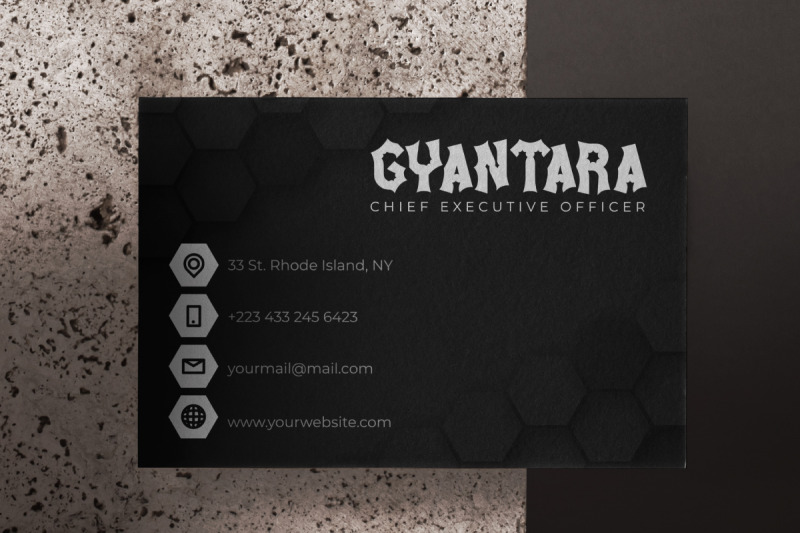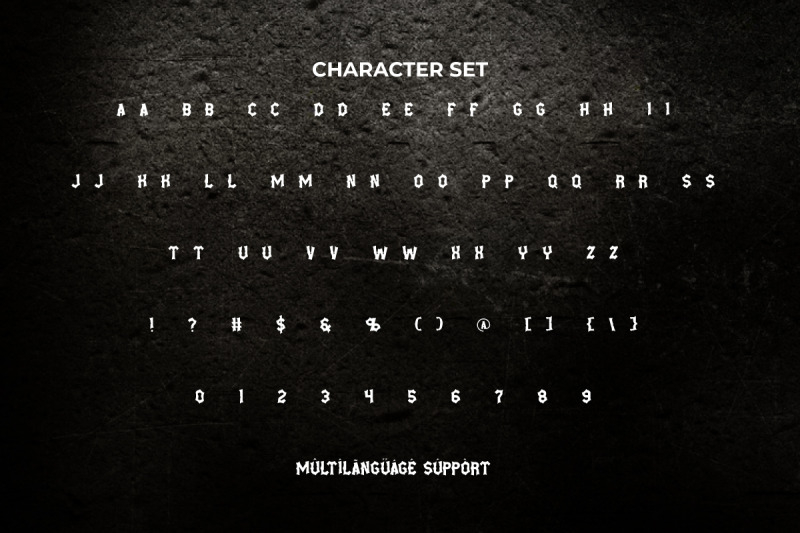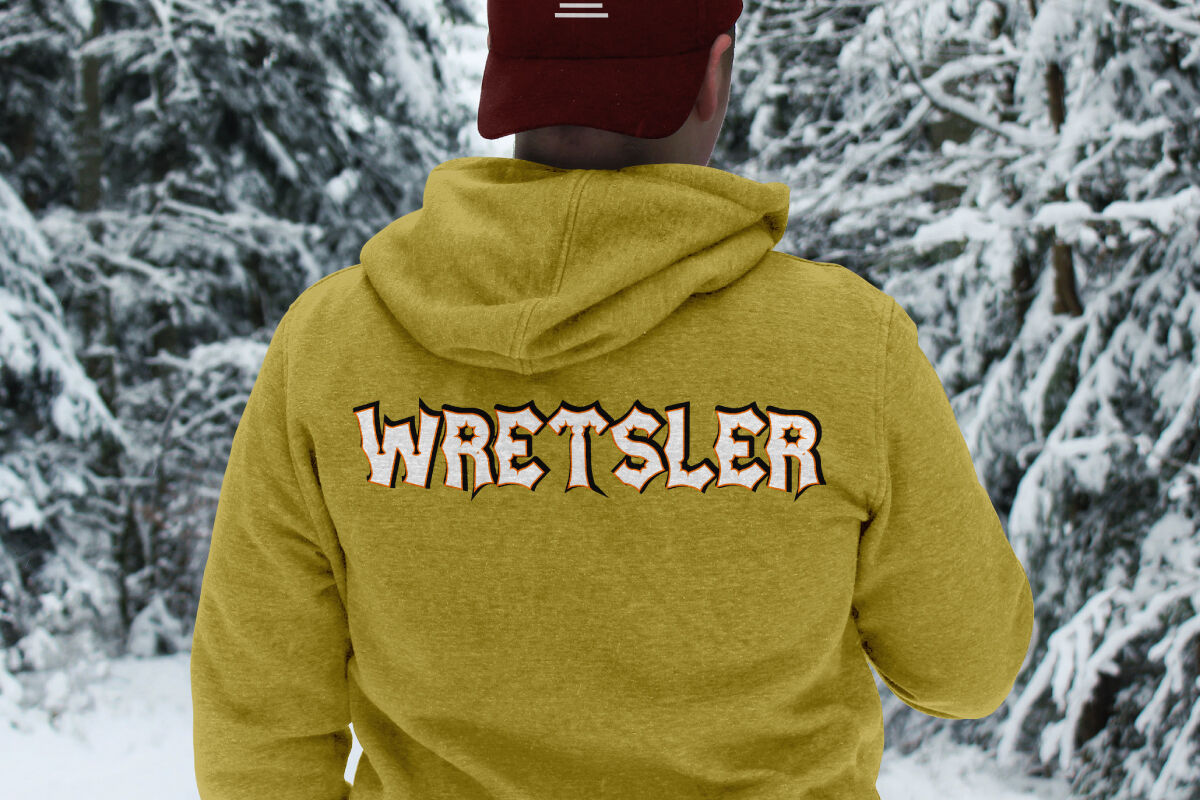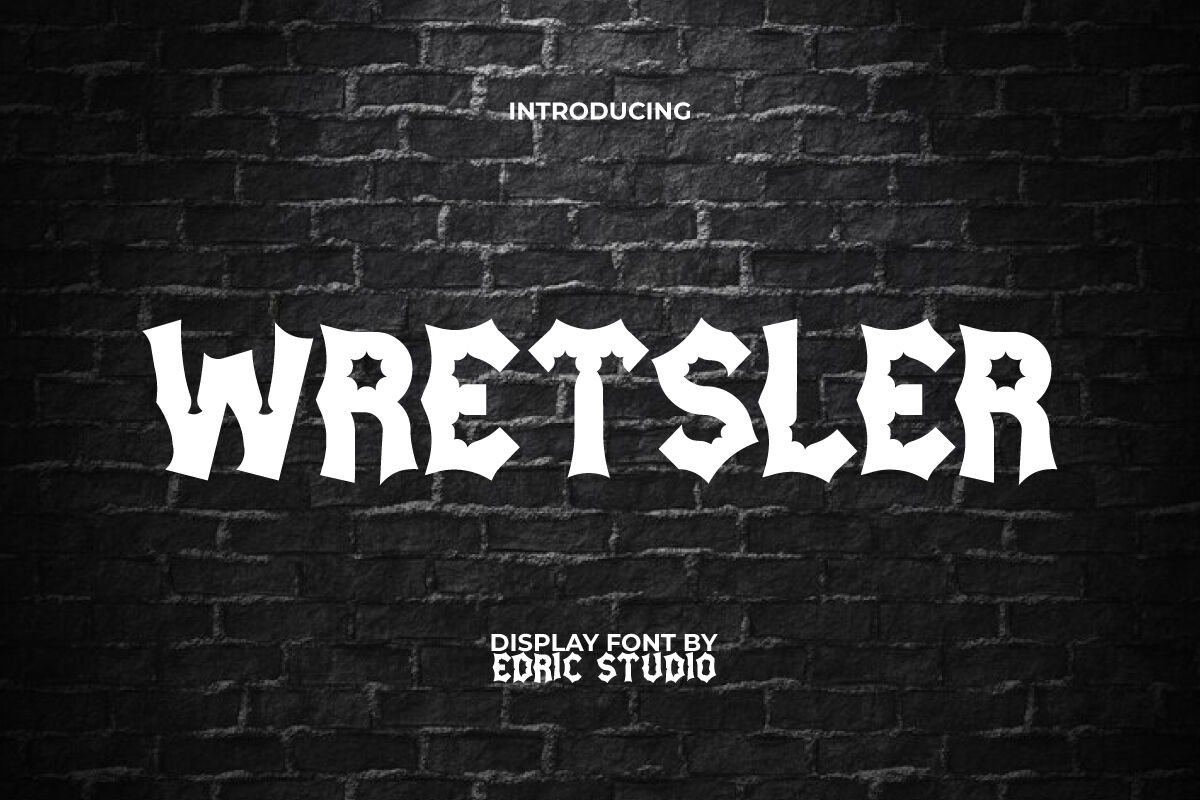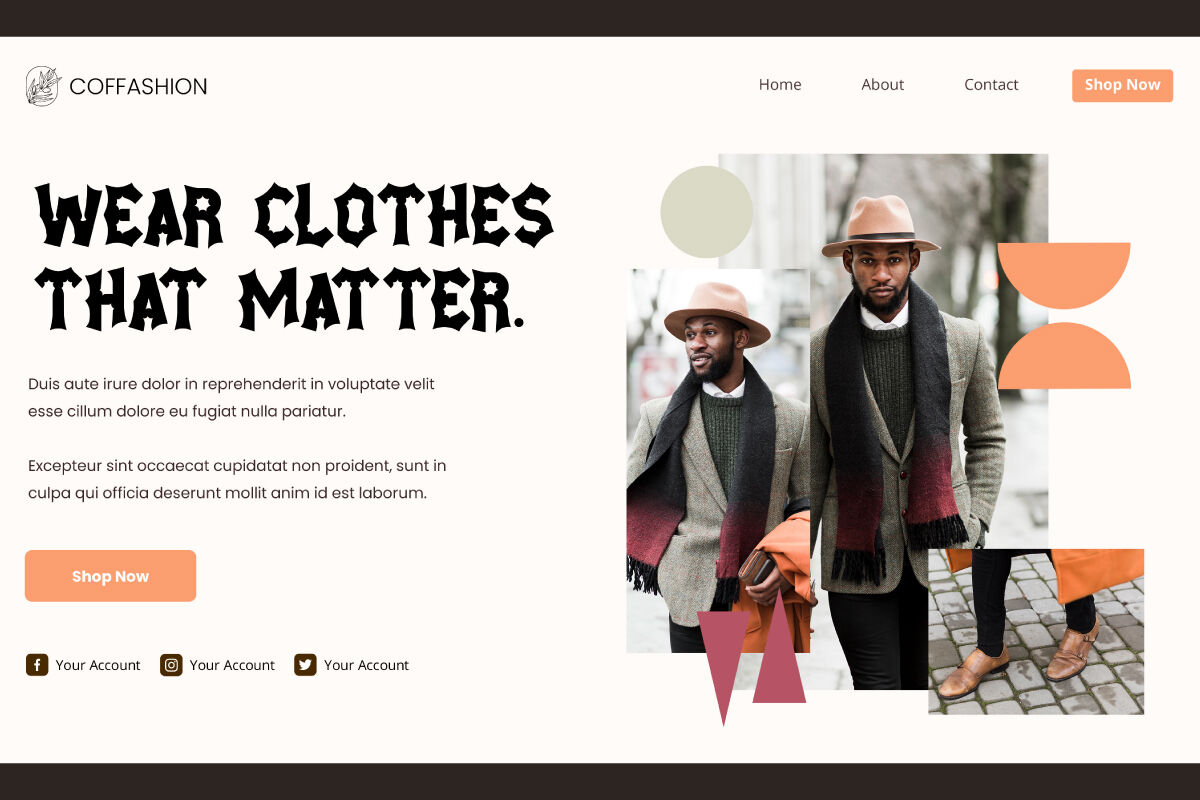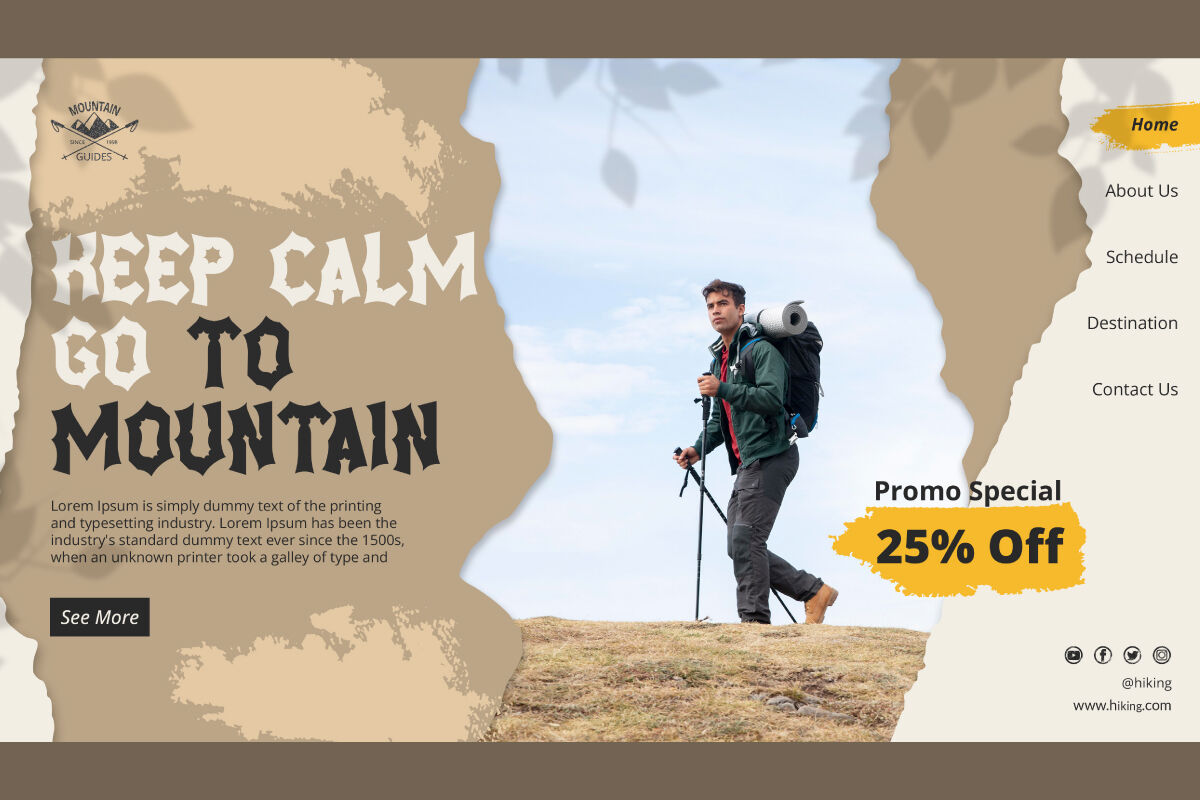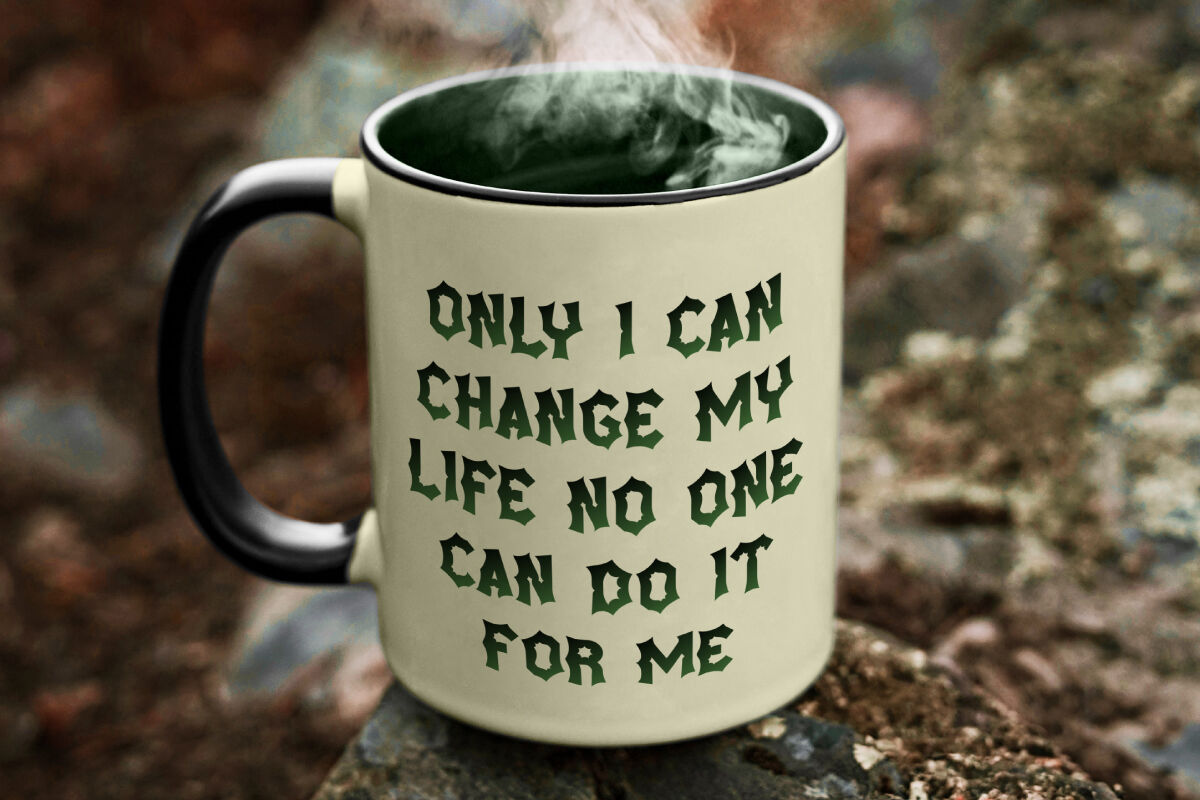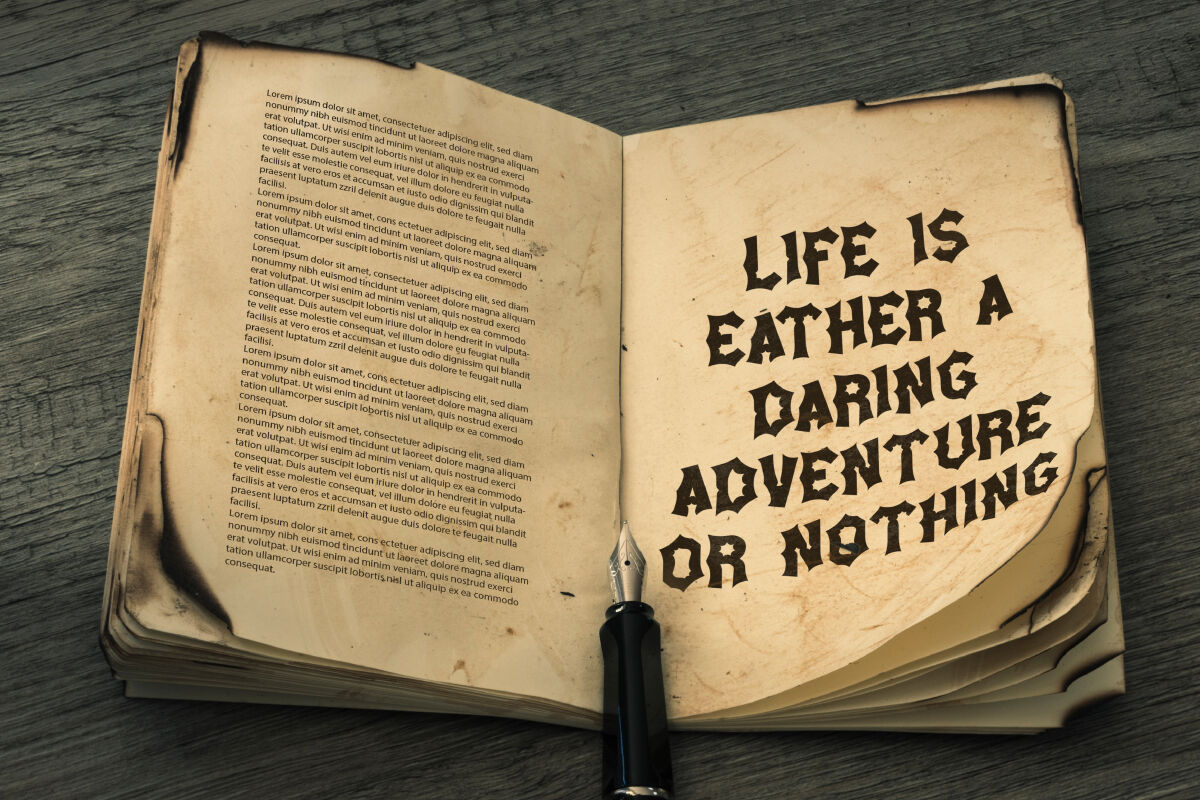
Wretsler Font is a horror standout explosion decoration display font. This typeface is inspired by classic action films which often make us nostalgic. The font impression is made dark and retro to represent bravery in action scenes of gunfights or explosions. It’s perfect for blogs, business cards, logos, magazine designs, movie, packaging, posters, quotes, screen print, stationery, sticker, titles, website or simply stylish text overlays on any background image.
Introducing Wretsler Grunge Display Font – a bold, edgy, and distressed typeface designed to make your projects stand out with raw character and attitude. With its rugged texture and strong personality, this font is the perfect choice for designers who want to create impactful visuals with a rebellious edge.
Crafted with precision, Wretsler Grunge Display Font balances readability with a gritty, hand-worn style. Its versatility makes it ideal for bold headlines, merchandise designs, album covers, and event promotions. Pair it with clean minimalist elements for contrast, or go full-on grunge for maximum visual impact.
Wretsler Grunge Display Font includes a complete set of ALL CAPS for Uppercase and Lowercase Letters, Numbers, Punctuation and Symbols. The overall appearance of the font often has a significant visual impact and is reminiscent of old advertisements. You can use it as a display type as well as longer text. It will be versatile for various projects, such as classic items, band, cafeteria, fashion brands, film, movie, outdoor sports equipment, printing, publishing, sports, sportwear, and many more.